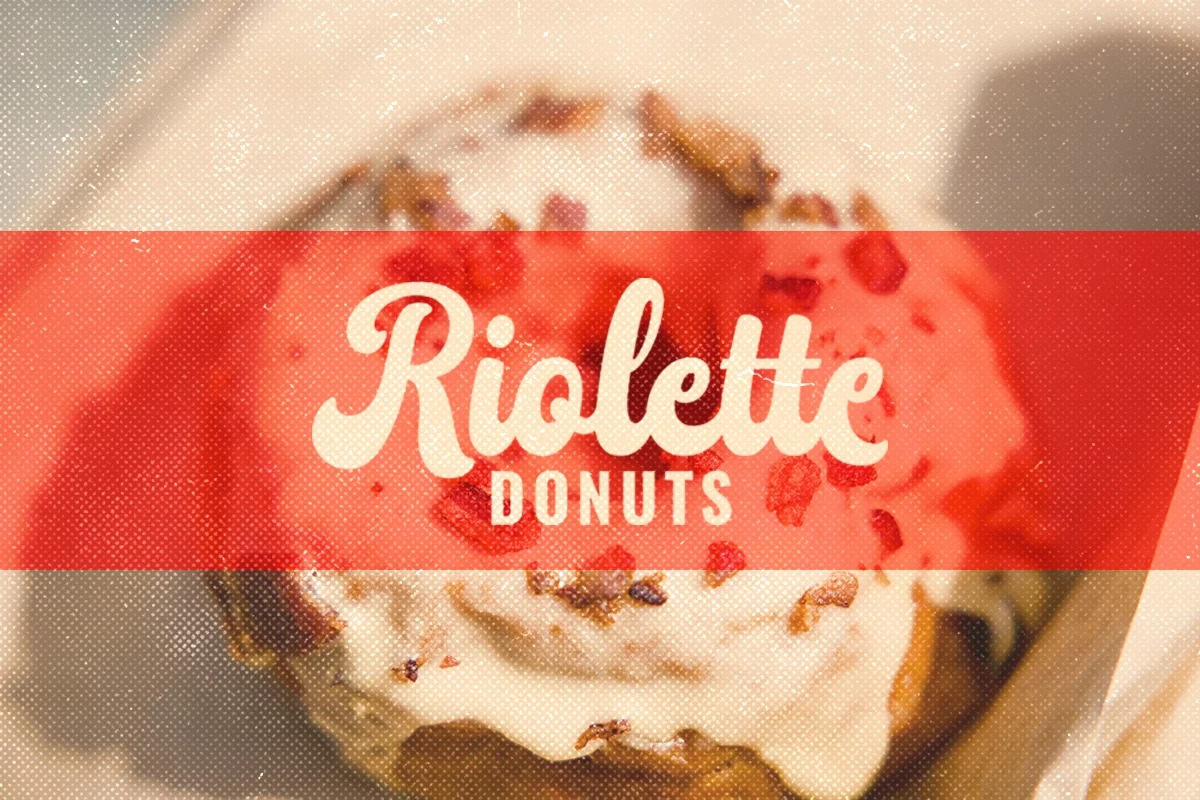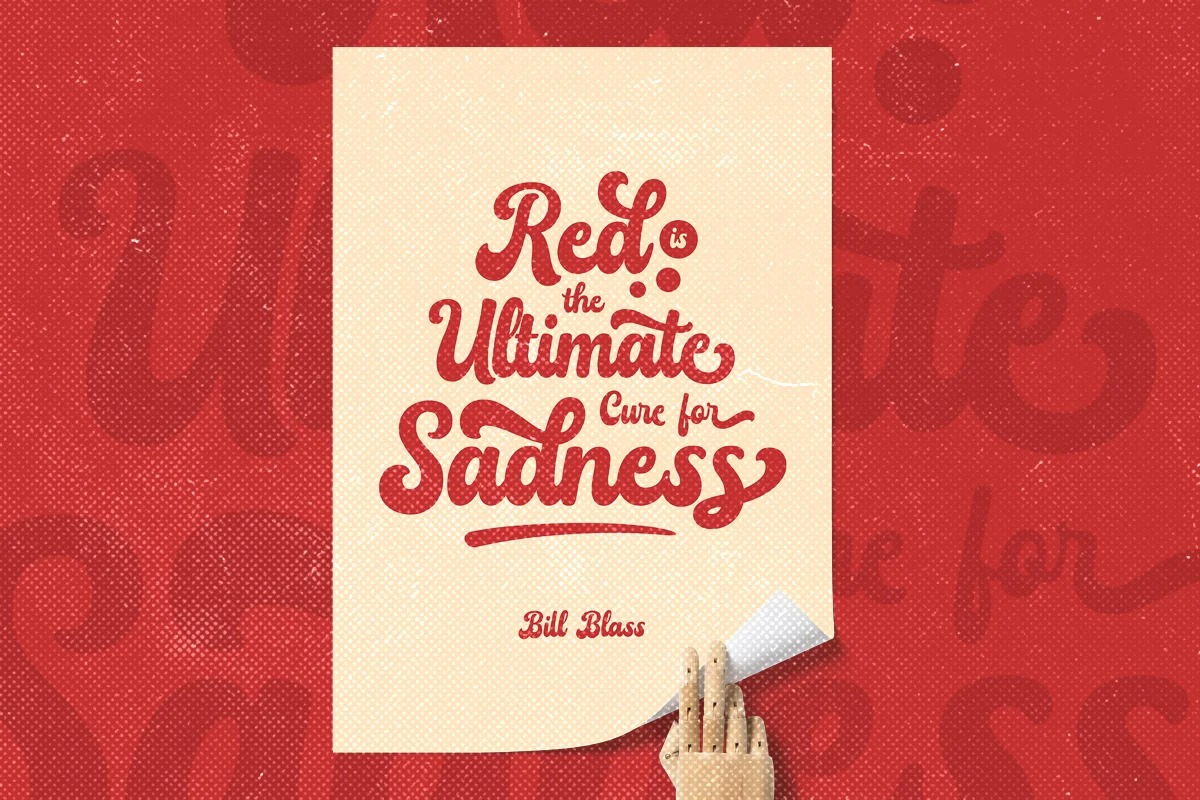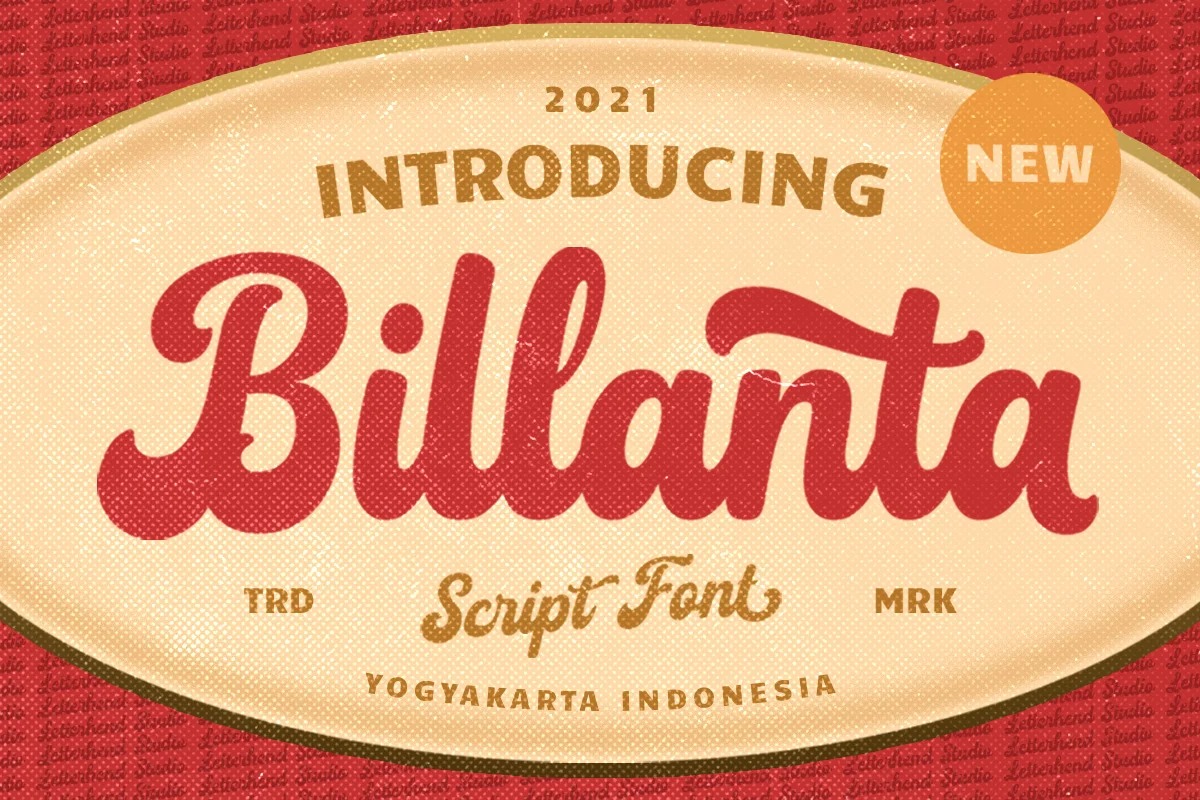
Billanta Font
Billanta Bold Script Font
This is a bold typeface with unique angles and is easy to read so it is comfortable to wear. This font is made with an old feel which is perfect for vintage/retro themed events. This font perfectly made to be applied especially in logo, and the other various formal forms such as invitations, labels, logos, magazines, books, greeting / wedding cards, packaging, fashion, make up, stationery, novels, labels or any type of advertising purpose.